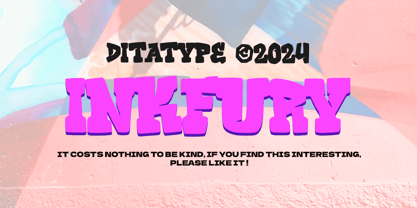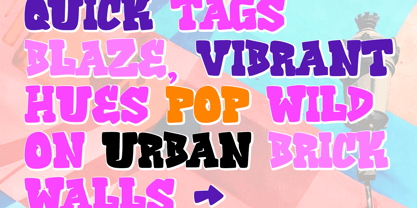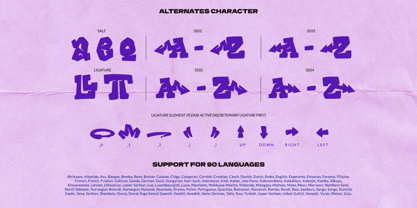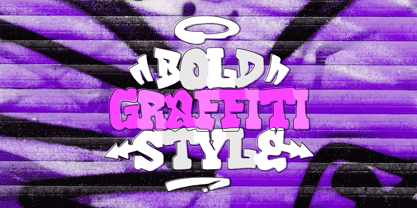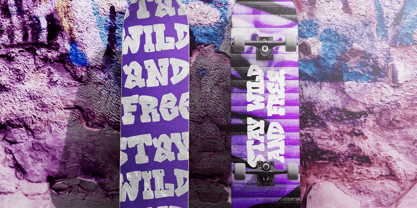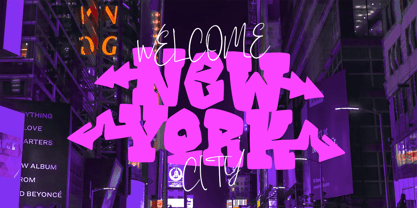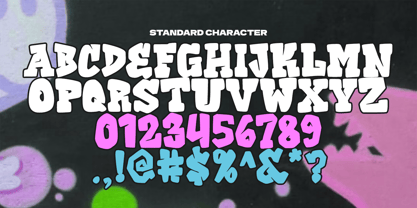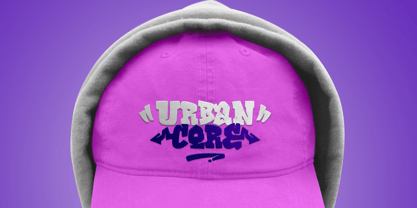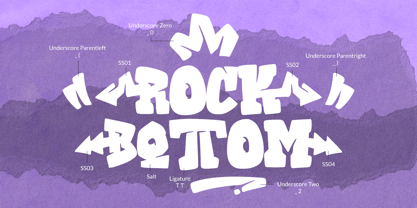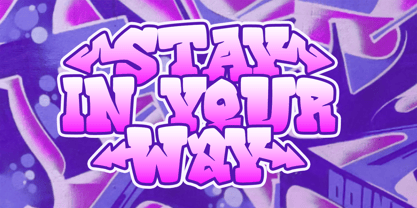
Inkfury
Inkfury is a vibrant graffiti font designed in a bubble style, featuring softly rounded corners at the ends of each letter for an approachable, urban aesthetic. Crafted with consistent proportions, Inkfury delivers a balanced and impactful look, making it perfect for adding a bold street-inspired flair to your designs. In addition, enjoy the features here.
Features:
• Ligatures
• Stylistic Sets
• Multilingual Supports
• PUA Encoded
• Numerals and Punctuations
Inkfury fits in logos, posters, branding materials, print media, editorial layouts, and many more designs. Find out more ways to use this font by taking a look at the font preview.